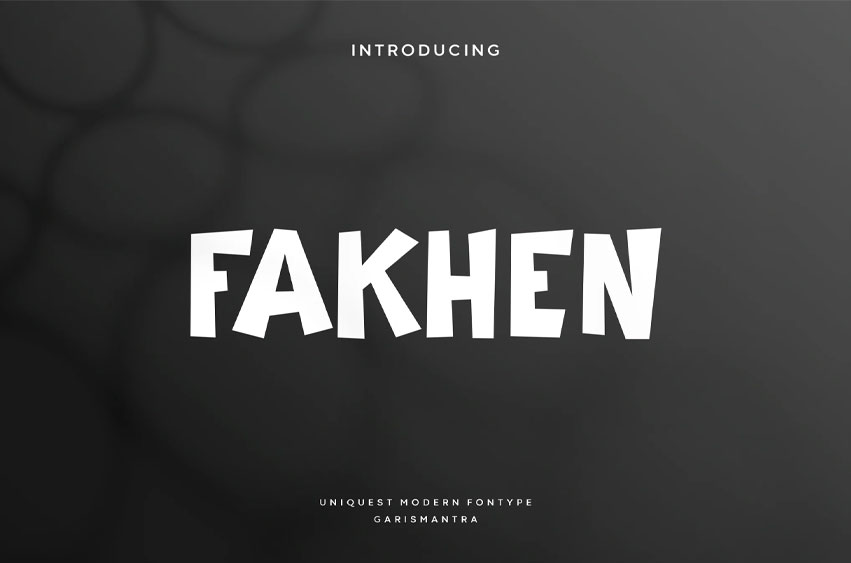
Fakhen Font
Fakhen Font is an all-caps font with a dynamic style but has a bit of a childish accent to make it look playful.
This will give a very modern feel but a bit unique in its placement, this font is suitable for titles, website descriptions or various other types of designs. Grab it right away, and use this font for your new look.